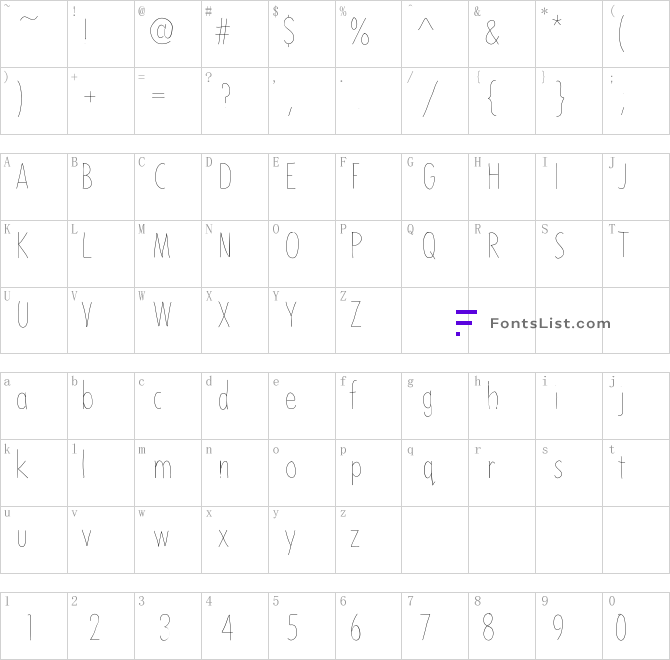
- Font Name:BDToulouse
BDToulouse.ttf is a very beautiful artistic font, BDToulouse.ttf is widely used in the design and printing of various books and pictures,BDToulouse.ttf has a strong visual impact,BDToulouse.ttf is a commonly used font in newspapers, magazines and books, and is used in posters, e-commerce Poster design, store design, logo design, font design and other fields.BDToulouse.